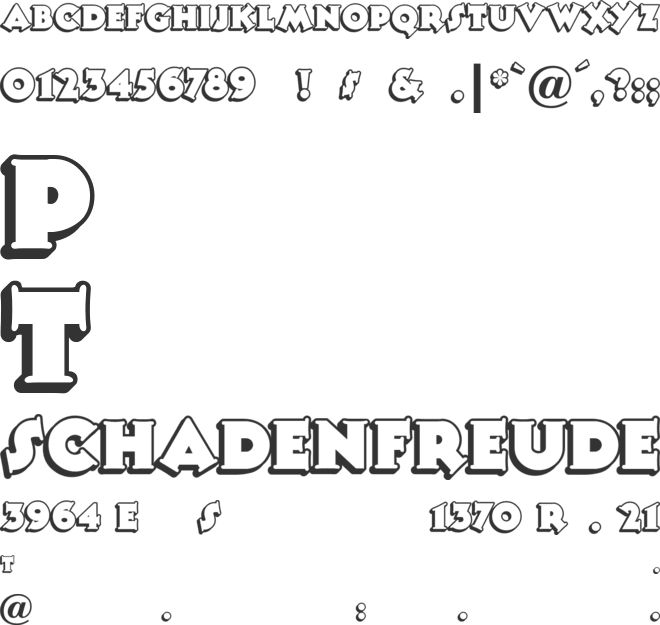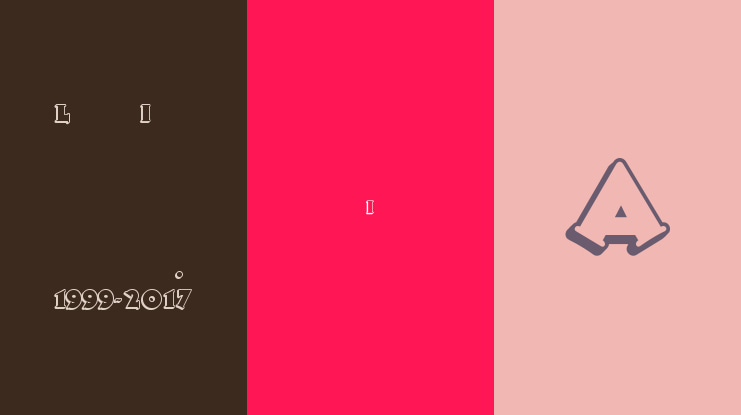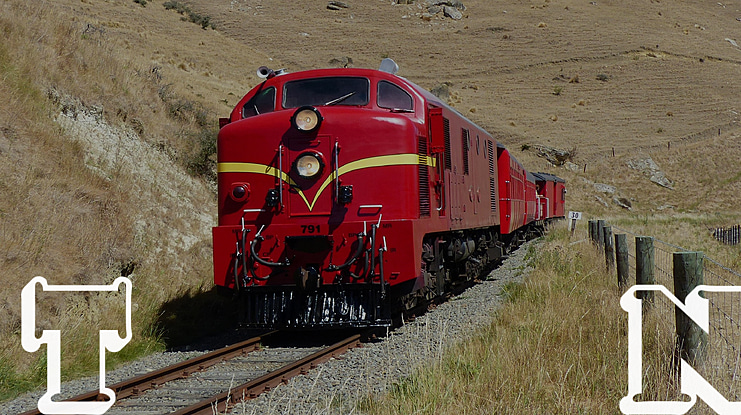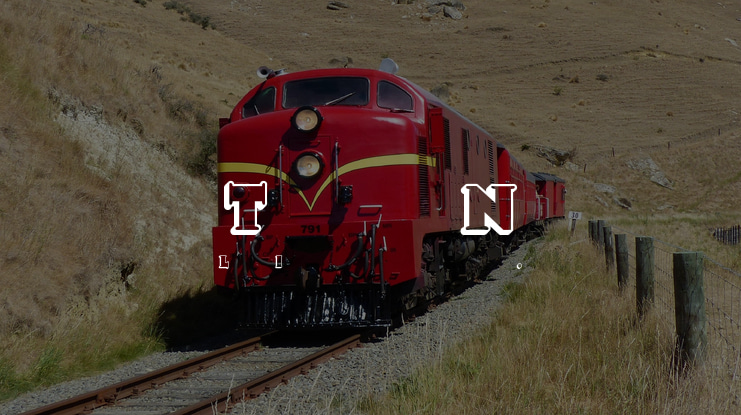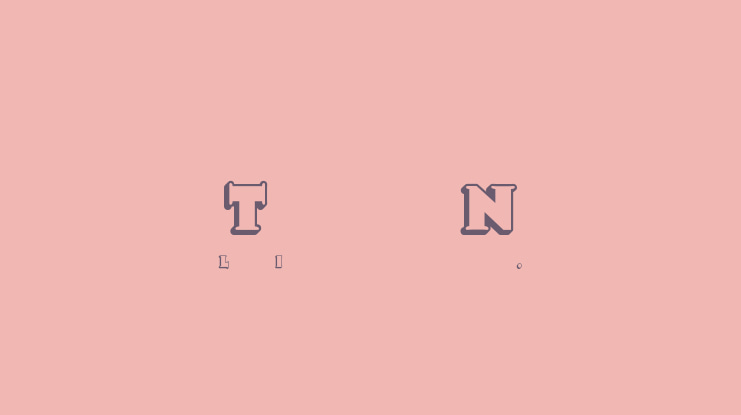
TooneyNoodle Font
I first saw this font in a Photolettering catalog about twenty-five years ago as Charlie Pointed and loved it; since then, it has kicked around the Internet and shareware font collections under various pseudonyms. Here’s yet another version, this time with an outline and extruded drop shadow, and named after my nephew’s favorite casserole.